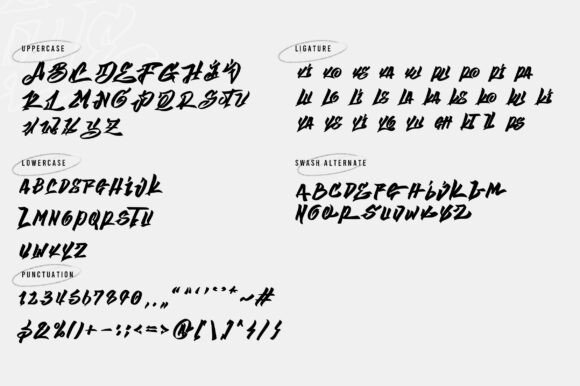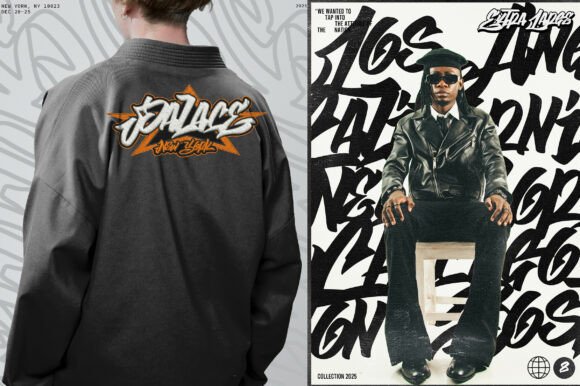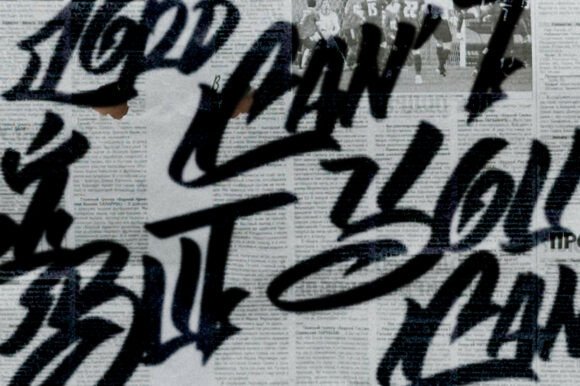
Introducing EXTRA LARGE: The Ultimate Display Font for Bold Visuals
Are you a designer looking for a font that packs a punch? Do you want to create eye-catching headlines and statement typography that demands attention? Look no further than EXTRA LARGE, a powerful display graffiti script font designed to bring bold visuals and strong street-style energy to your designs.
What is EXTRA LARGE?
EXTRA LARGE is a carefully crafted font that features oversized letterforms, expressive strokes, and an urban graffiti aesthetic. This font is made to stand out instantly, especially at large sizes, making it perfect for headlines, titles, and typography that needs to make a statement.
Key Features of EXTRA LARGE
- Oversized Letterforms: EXTRA LARGE features letterforms that are larger than life, making it perfect for creating bold and eye-catching typography.
- Expressive Strokes: The font’s strokes are expressive and dynamic, adding a touch of raw graffiti character to your designs.
- Urban Graffiti Aesthetic: EXTRA LARGE has an unmistakable urban graffiti aesthetic that adds a cool, edgy vibe to your designs.
- Clean and Well-Crafted Letterforms: Despite its raw, graffiti-inspired look, EXTRA LARGE features clean and well-crafted letterforms that make it both expressive and practical for modern design workflows.
EXTRA LARGE is designed for professional use, making it perfect for designers and crafters who need a font that can deliver maximum visual impact. Whether you’re working on branding, apparel, posters, or digital content, this font is sure to bring confidence, attitude, and creativity to your designs.
Use Cases for EXTRA LARGE
- Branding: Use EXTRA LARGE to create bold and eye-catching logos, titles, and taglines that make a lasting impression.
- Apparel: Add a touch of street-style energy to your apparel designs with EXTRA LARGE’s oversized letterforms and expressive strokes.
- Posters: Create striking posters that demand attention with EXTRA LARGE’s bold and urban graffiti aesthetic.
- Digital Content: Use EXTRA LARGE to add a touch of boldness and creativity to your digital content, such as social media graphics, blog posts, and website headers.
Why Choose EXTRA LARGE?
So why choose EXTRA LARGE over other display fonts? Here are just a few reasons:
- Unique and Memorable: EXTRA LARGE’s oversized letterforms and expressive strokes make it a unique and memorable font that’s sure to stand out.
- Versatile: Despite its bold and urban aesthetic, EXTRA LARGE is surprisingly versatile and can be used in a wide range of design applications.
- Easy to Read: Despite its large size, EXTRA LARGE is surprisingly easy to read, making it perfect for headlines and titles.
In conclusion, EXTRA LARGE is a powerful display graffiti script font that’s perfect for designers and crafters who want to create bold and eye-catching typography. With its oversized letterforms, expressive strokes, and urban graffiti aesthetic, this font is sure to bring confidence, attitude, and creativity to your designs. Whether you’re working on branding, apparel, posters, or digital content, EXTRA LARGE is the perfect choice for anyone looking to make a statement.